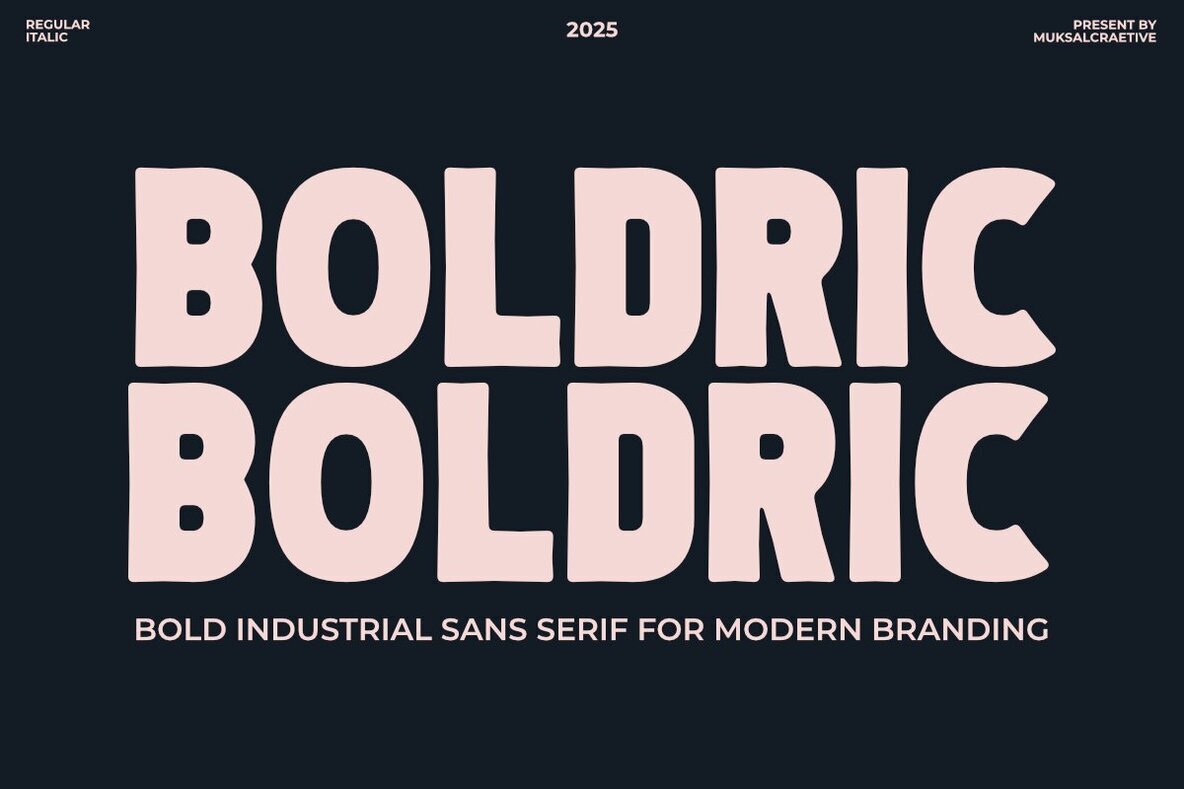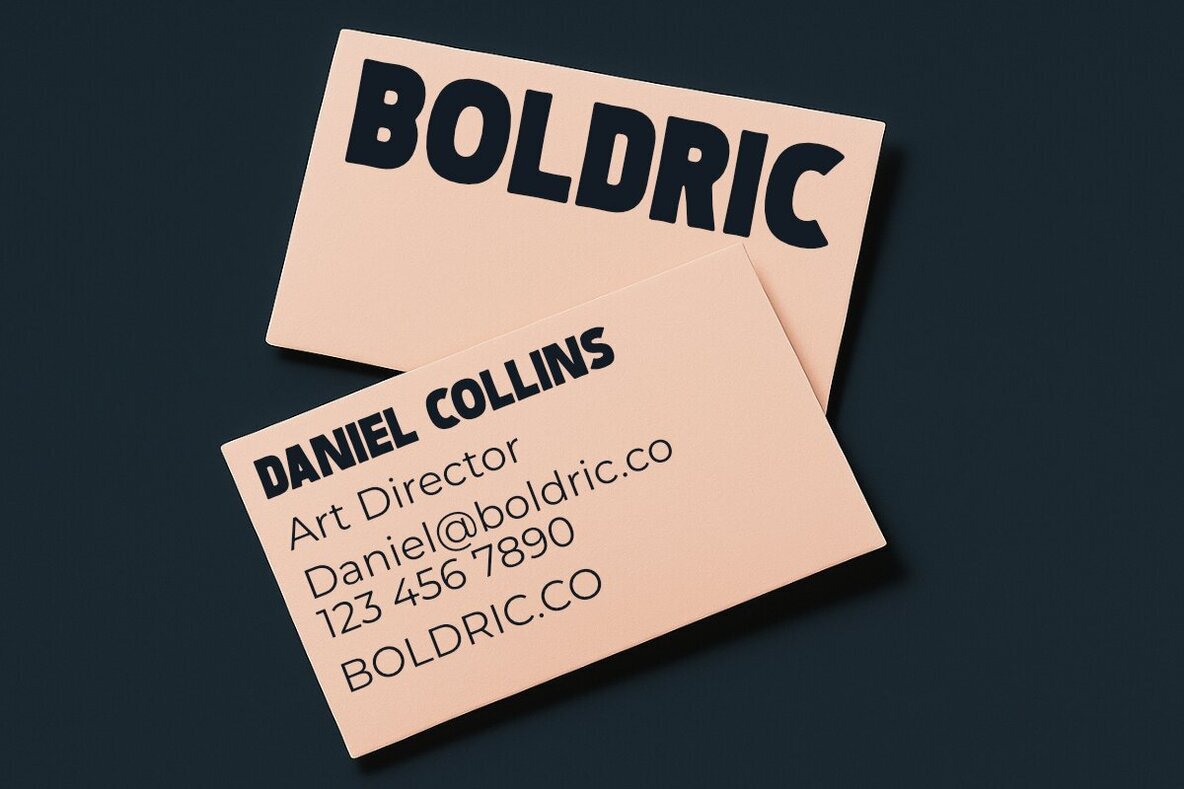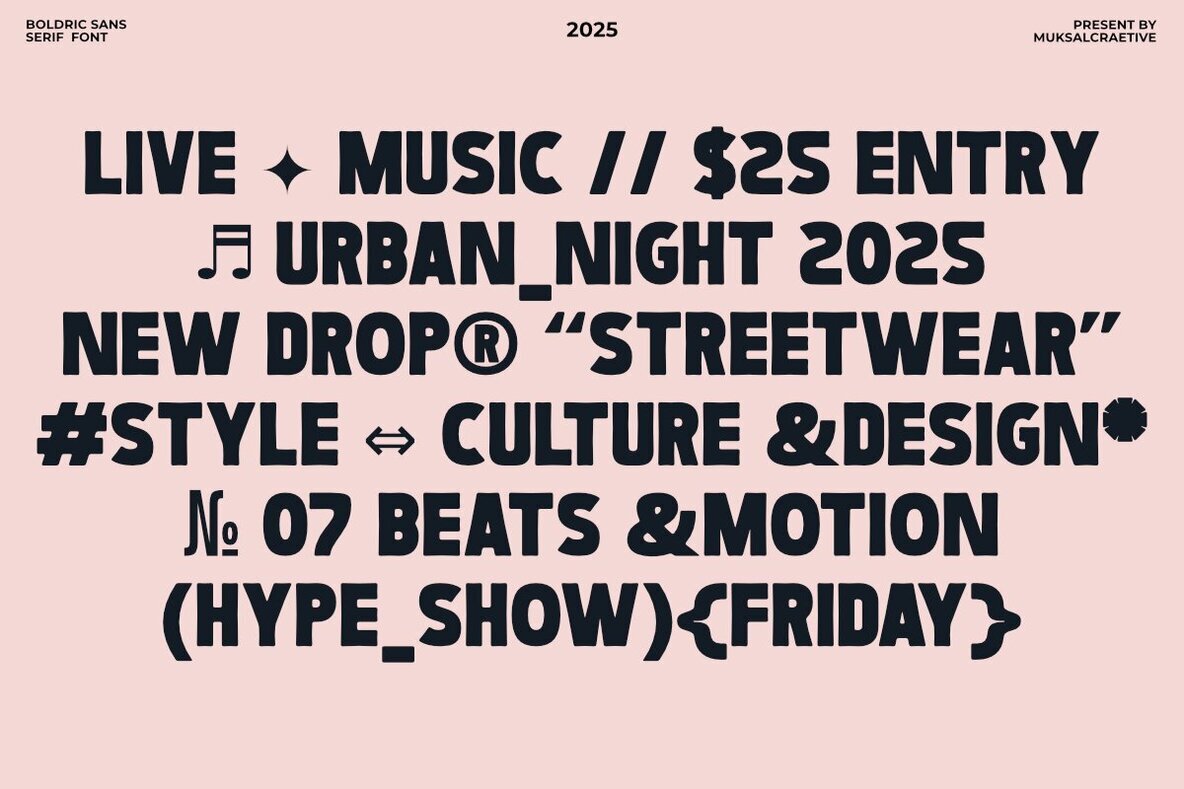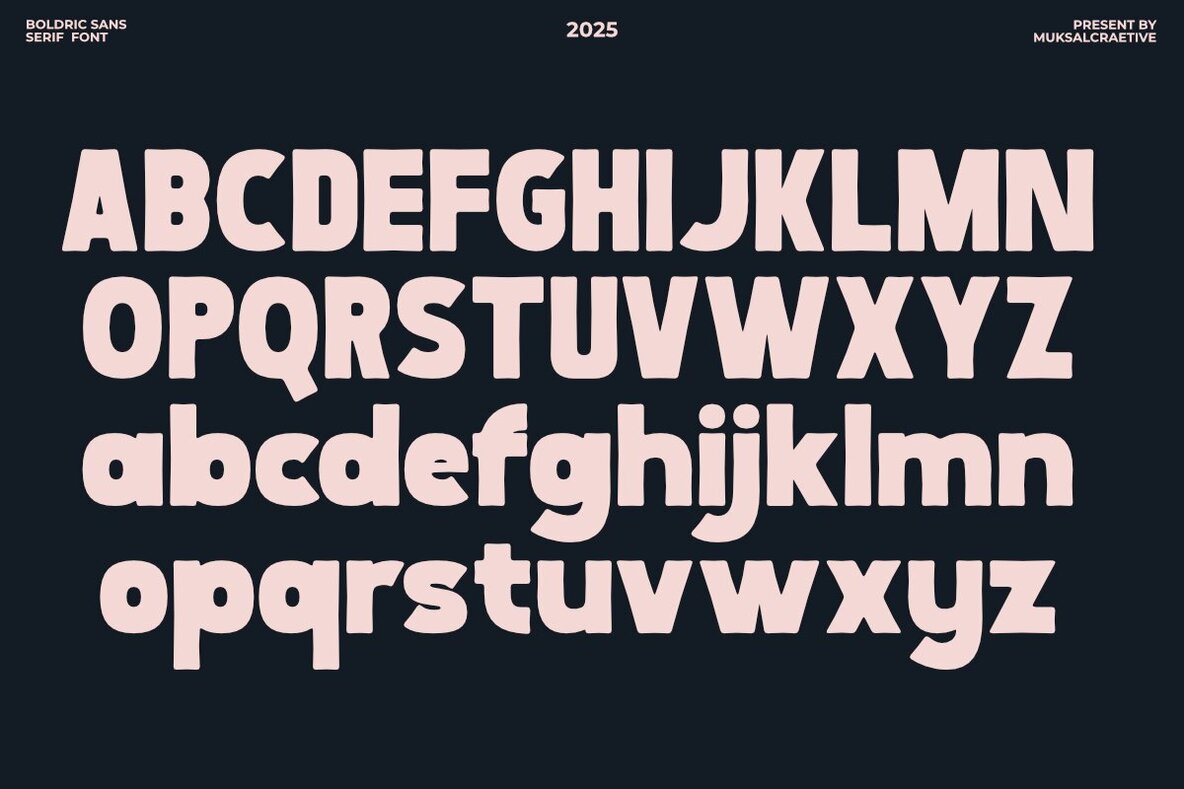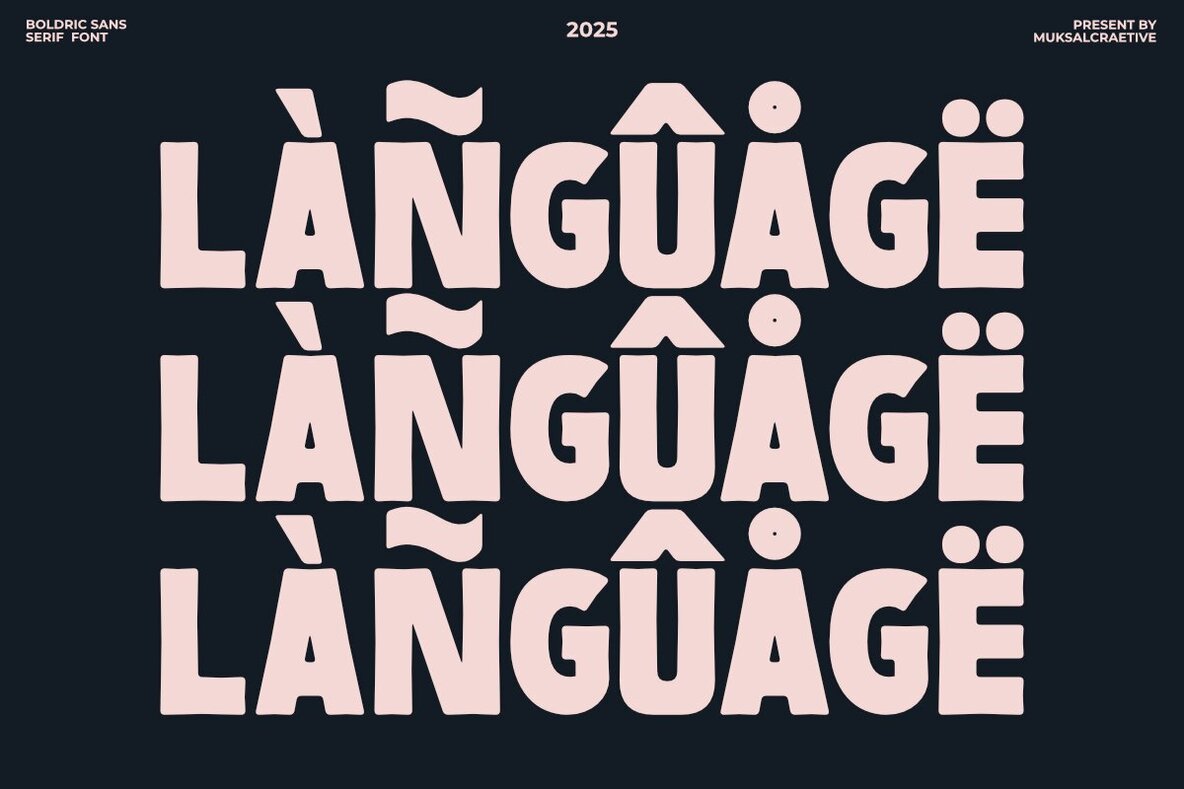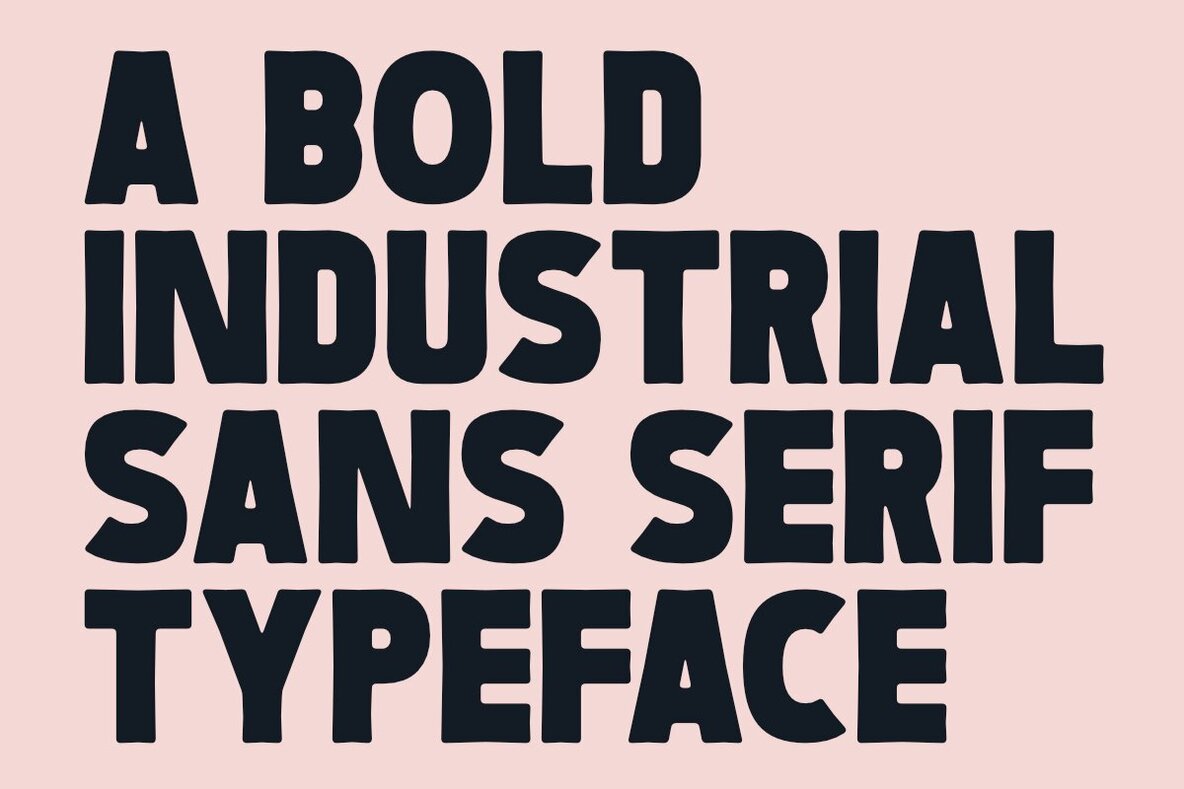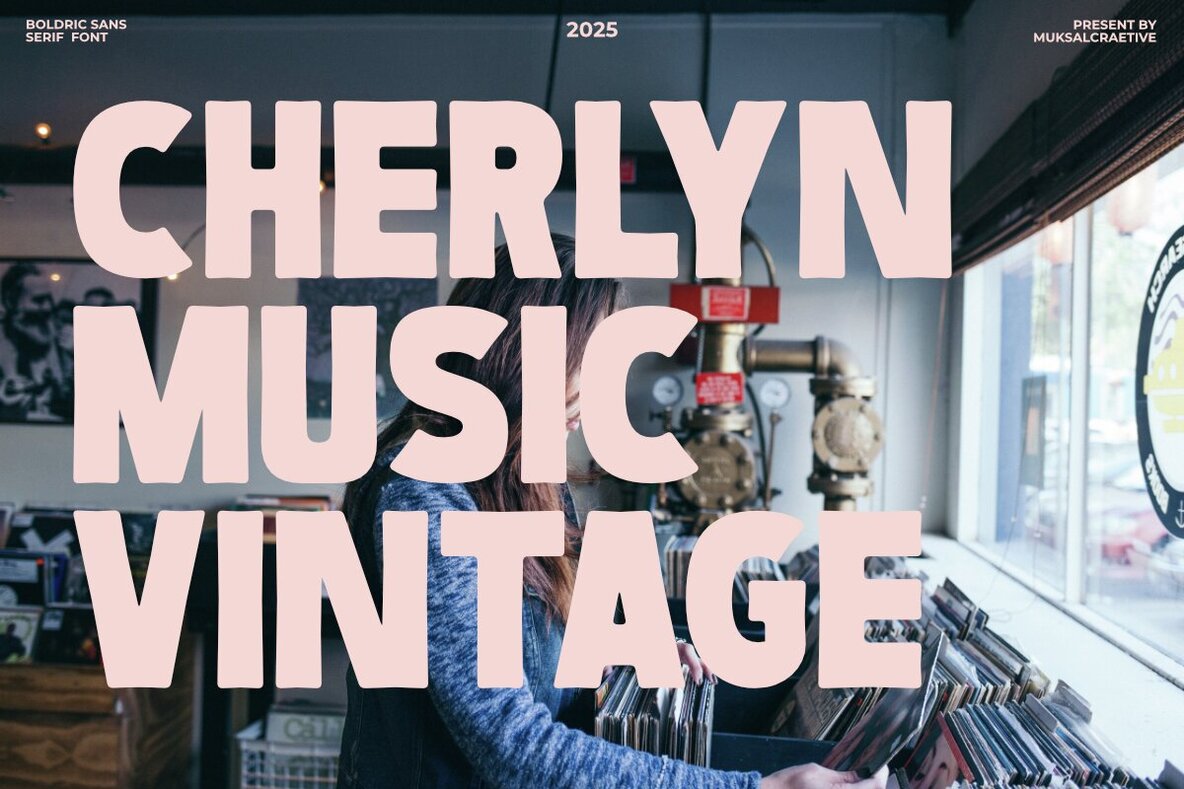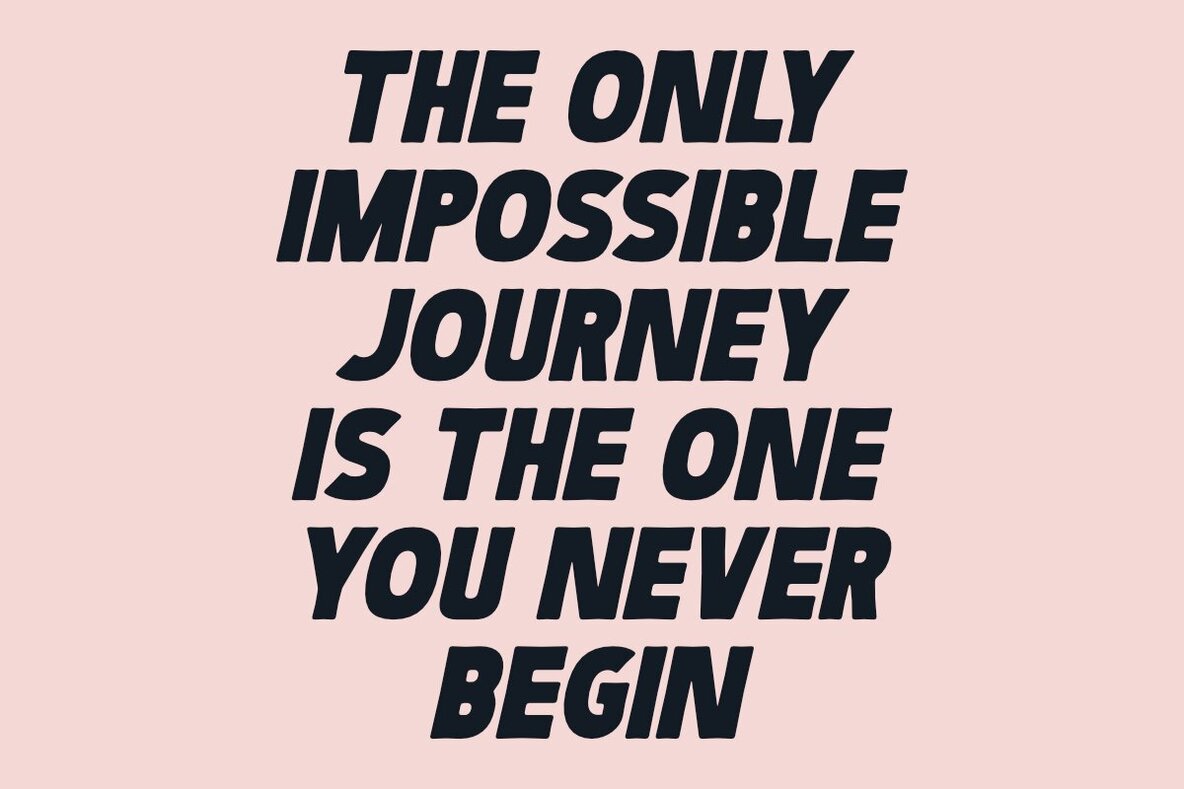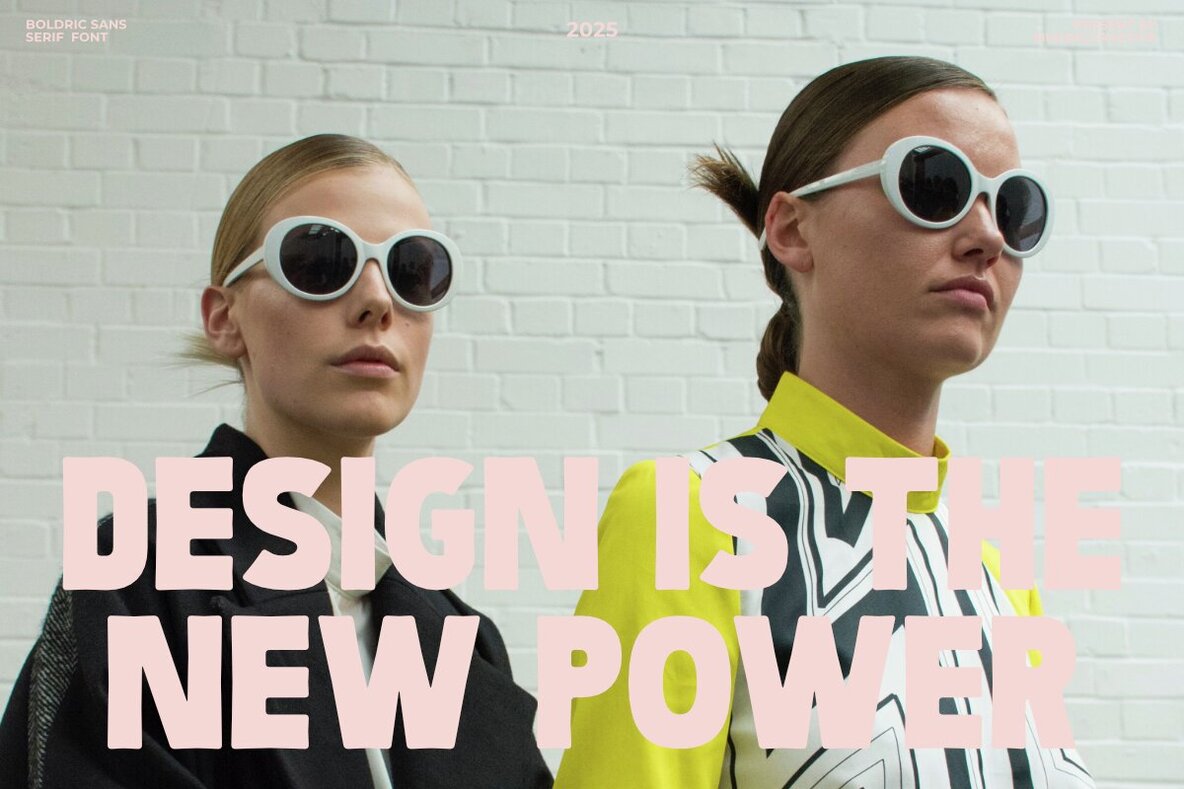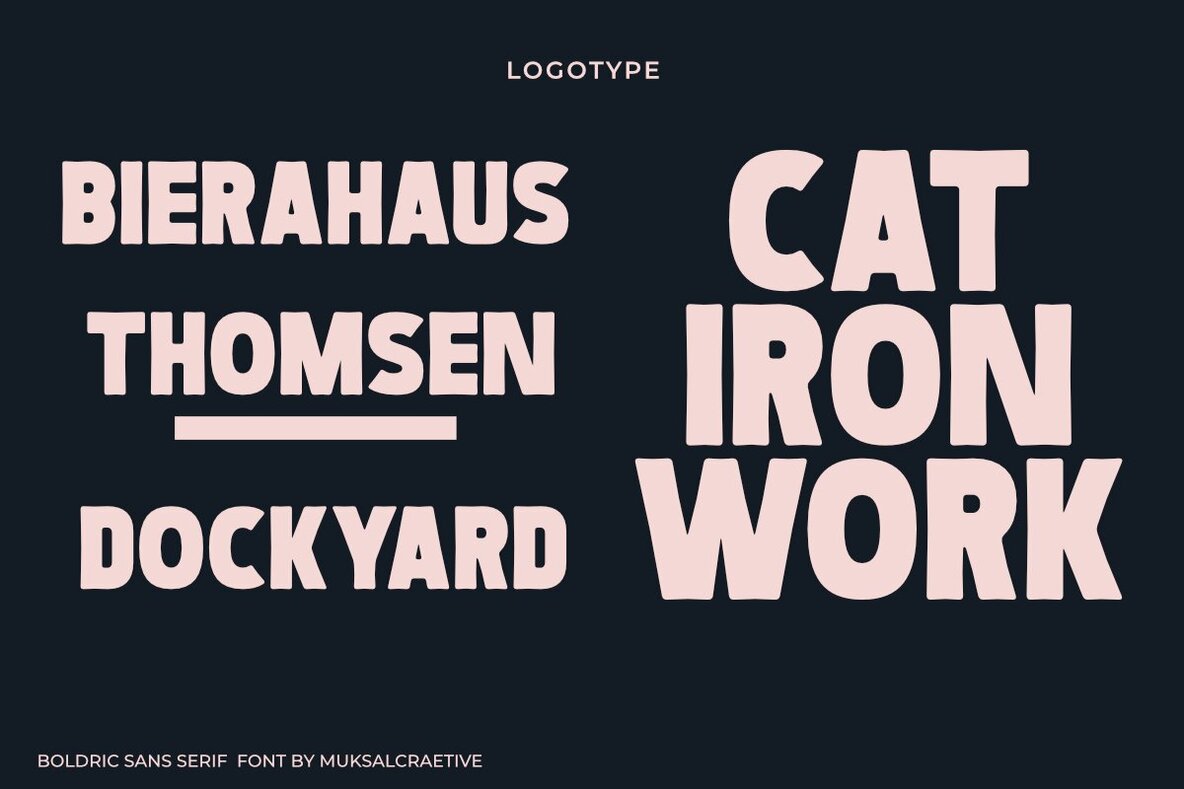
Boldric Font
Boldric reflects the essence of vintage industrial signage while embracing contemporary design. This robust sans serif font showcases strong letterforms that embody clarity and a modern flair, ideal for those seeking an impactful aesthetic. Whether used in logos, branding, packaging, signage, apparel, or editorial layouts and posters, Boldric's clean and distinctive style ensures it remains a versatile choice for both digital and print projects. Its ability to communicate your message with boldness and memorability makes it a reliable asset for any designer. With Boldric, your designs not only make a bold statement but also carry a professional and powerful presence tailored for creatives who strive to leave a mark.Boldric: Industrial Sans Serif with Modern Edge